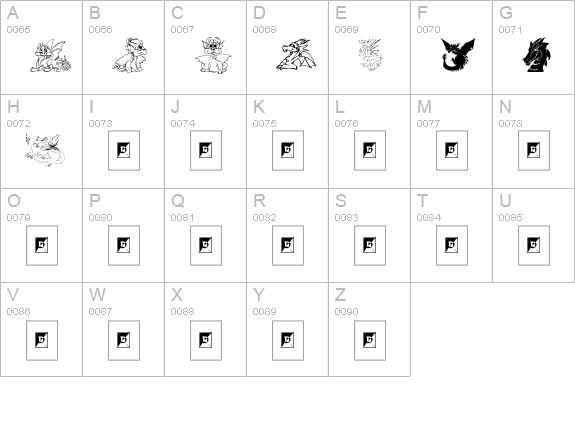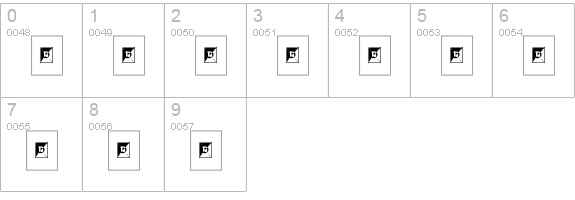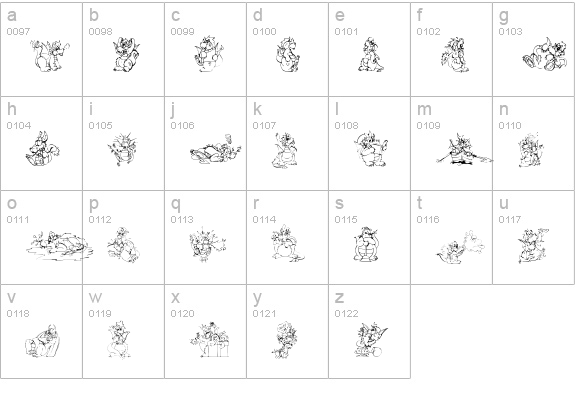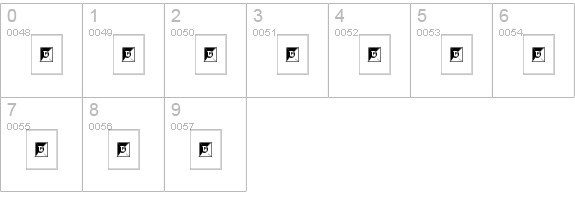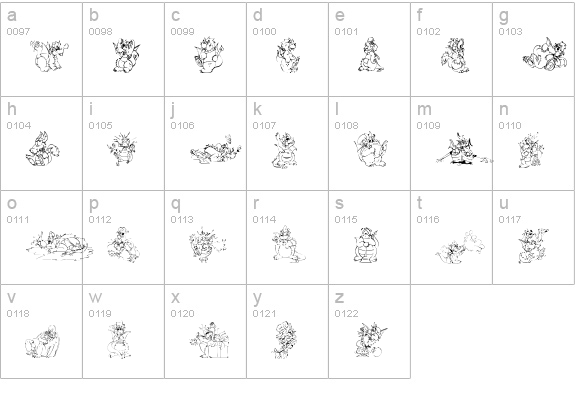
Delightful Lil Dragons Font Details
Delightful Lil Dragons font is a playful and charming typeface that brings a sense of whimsy and fun to any design project. With its adorable dragon-themed characters and unique flair, this font is perfect for adding a touch of magic to invitations, posters, and children's books. The smooth curves and intricate details of each letter create a delightful and enchanting aesthetic that is sure to captivate audiences of all ages. What makes Delightful Lil Dragons font even more appealing is that it is completely free to download. You can easily access this charming font at FontsMarket.com and start incorporating its delightful charm into your creations today. Whether you're looking to add a touch of fantasy to your designs or simply want to infuse some joy into your projects, Delightful Lil Dragons font is the perfect choice. Download it now and let your creativity soar with this enchanting typeface.